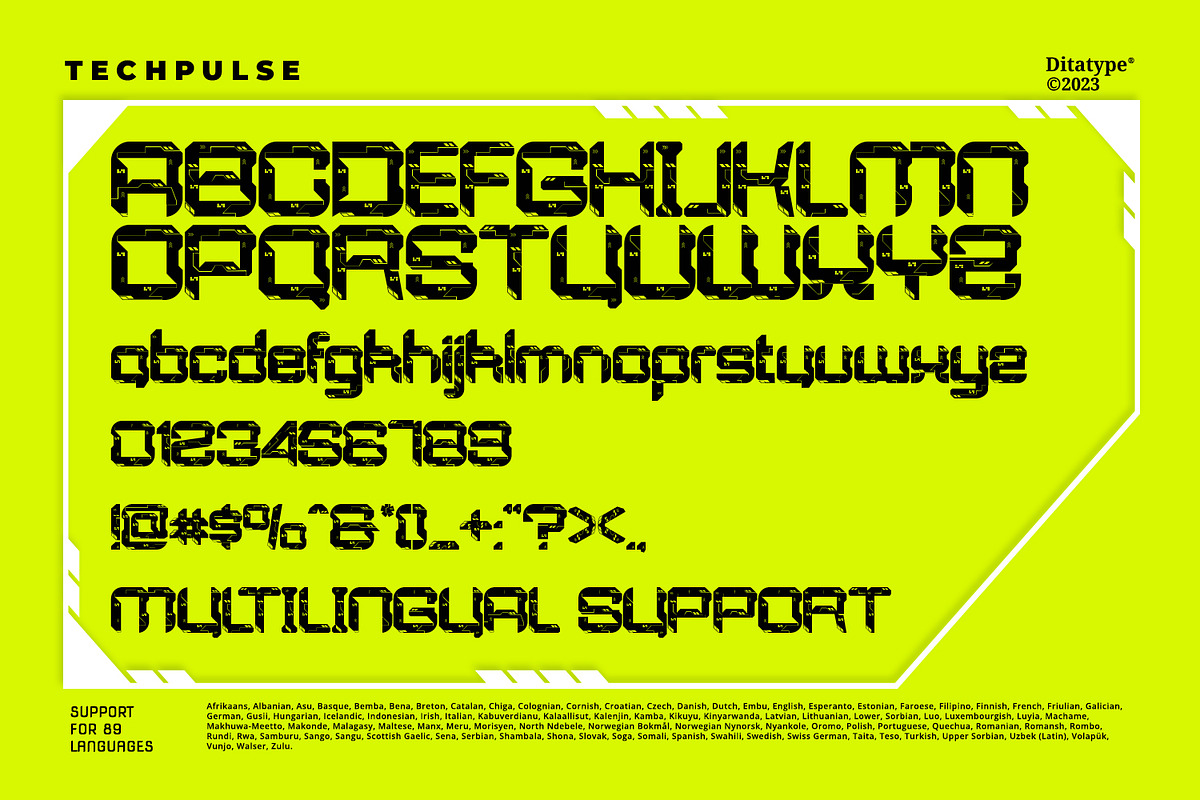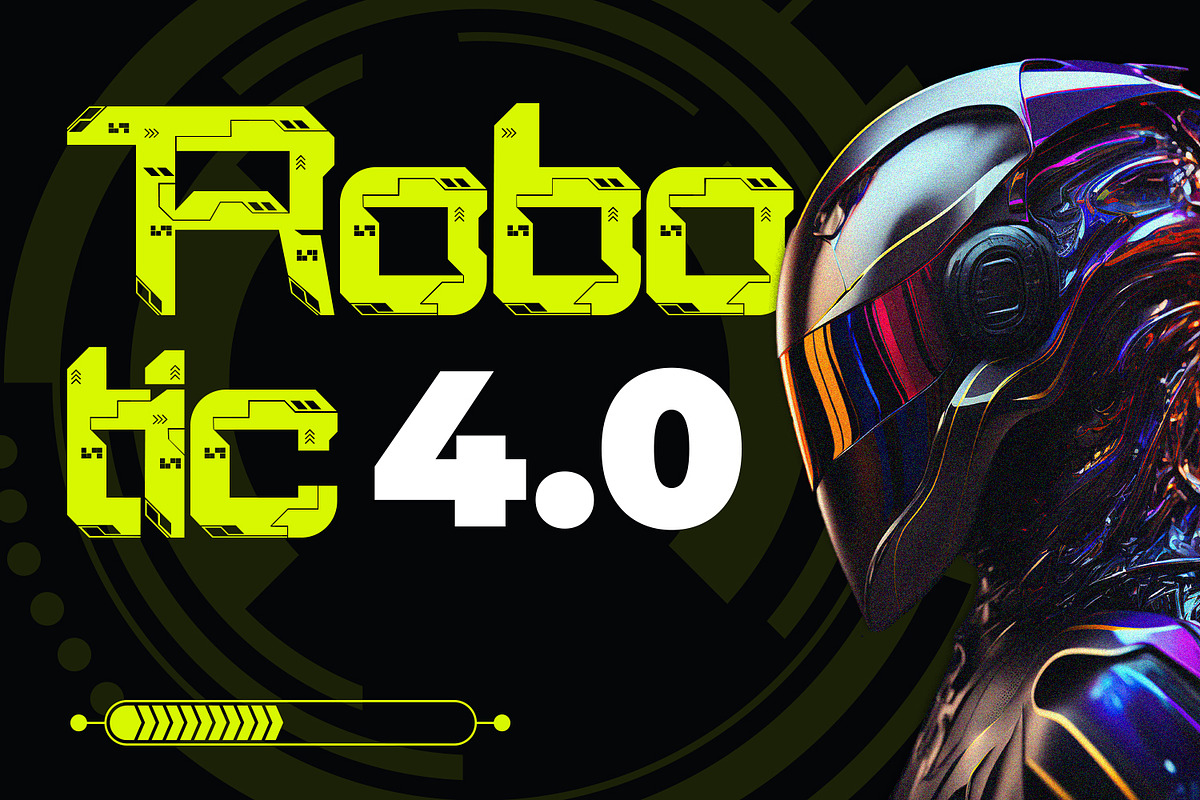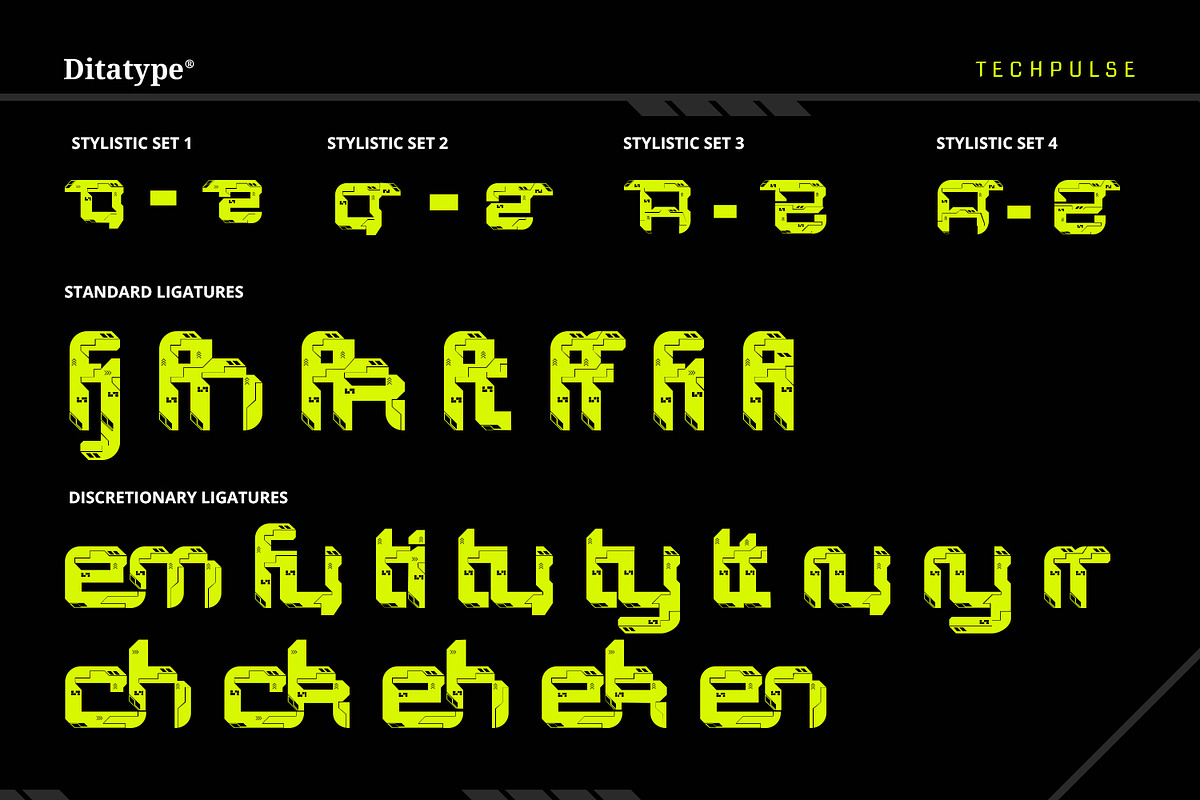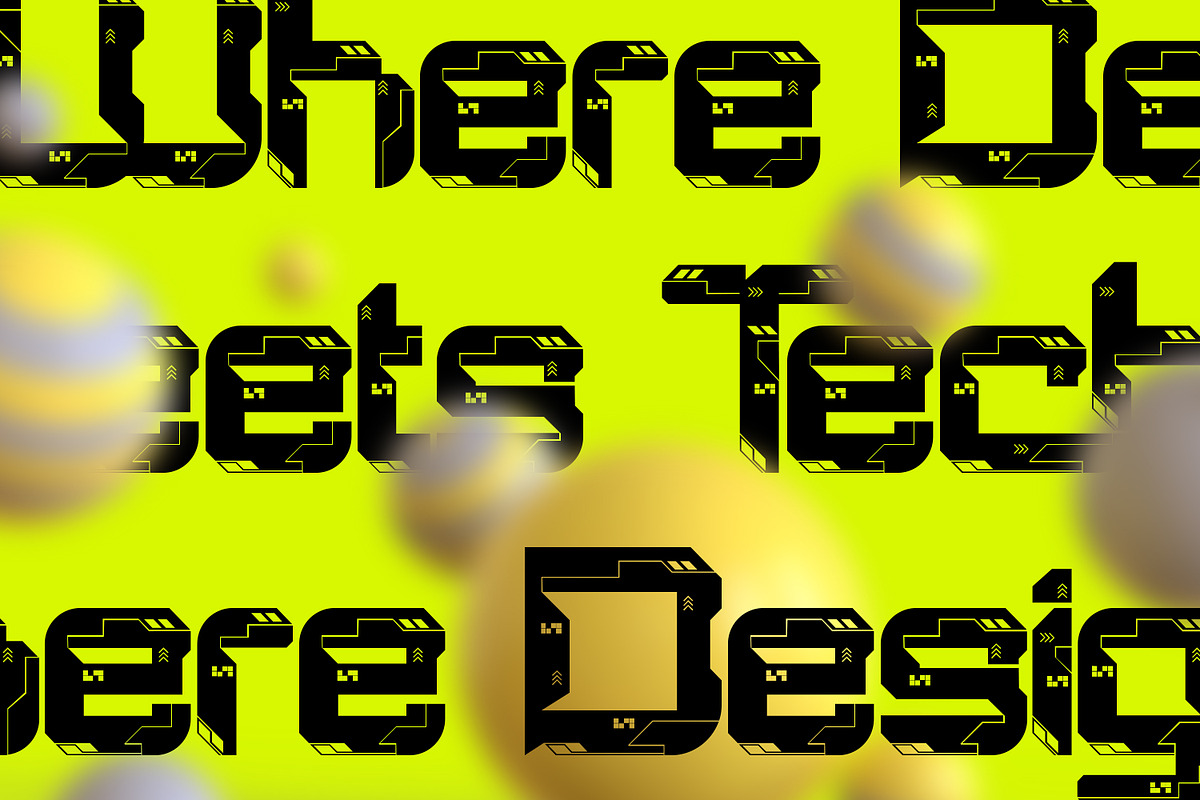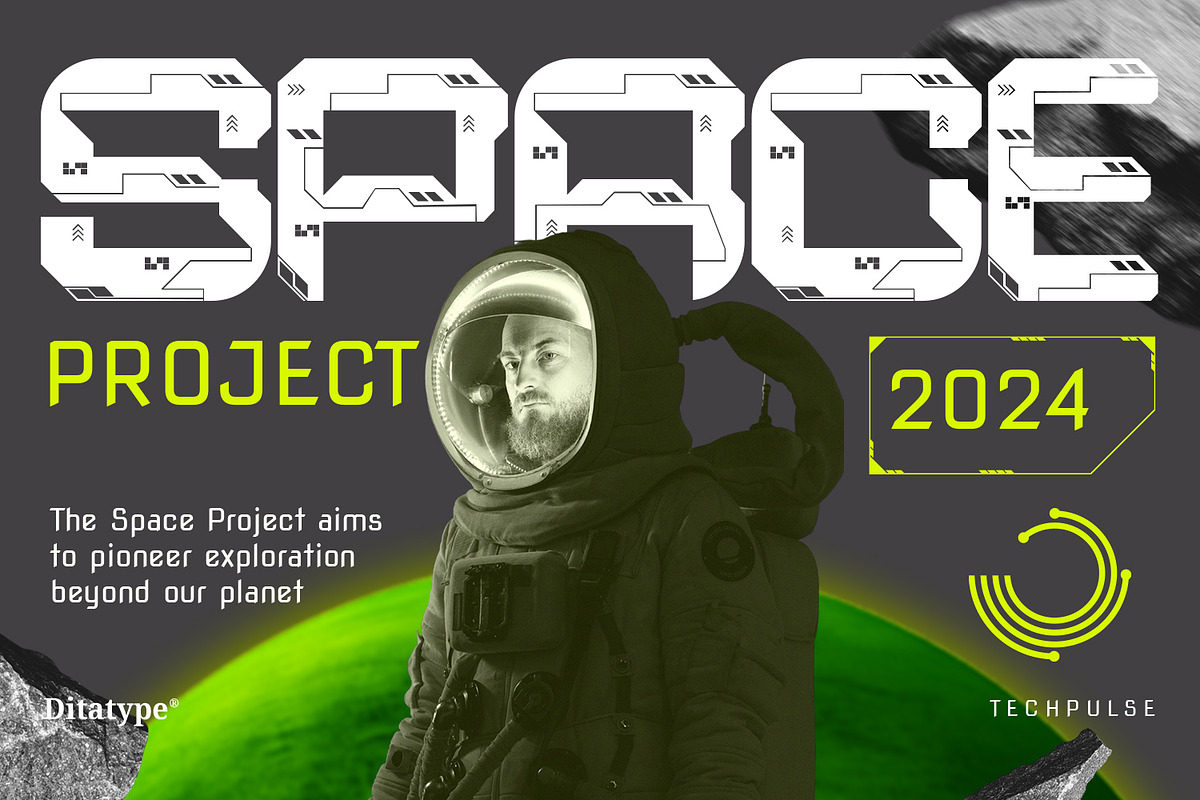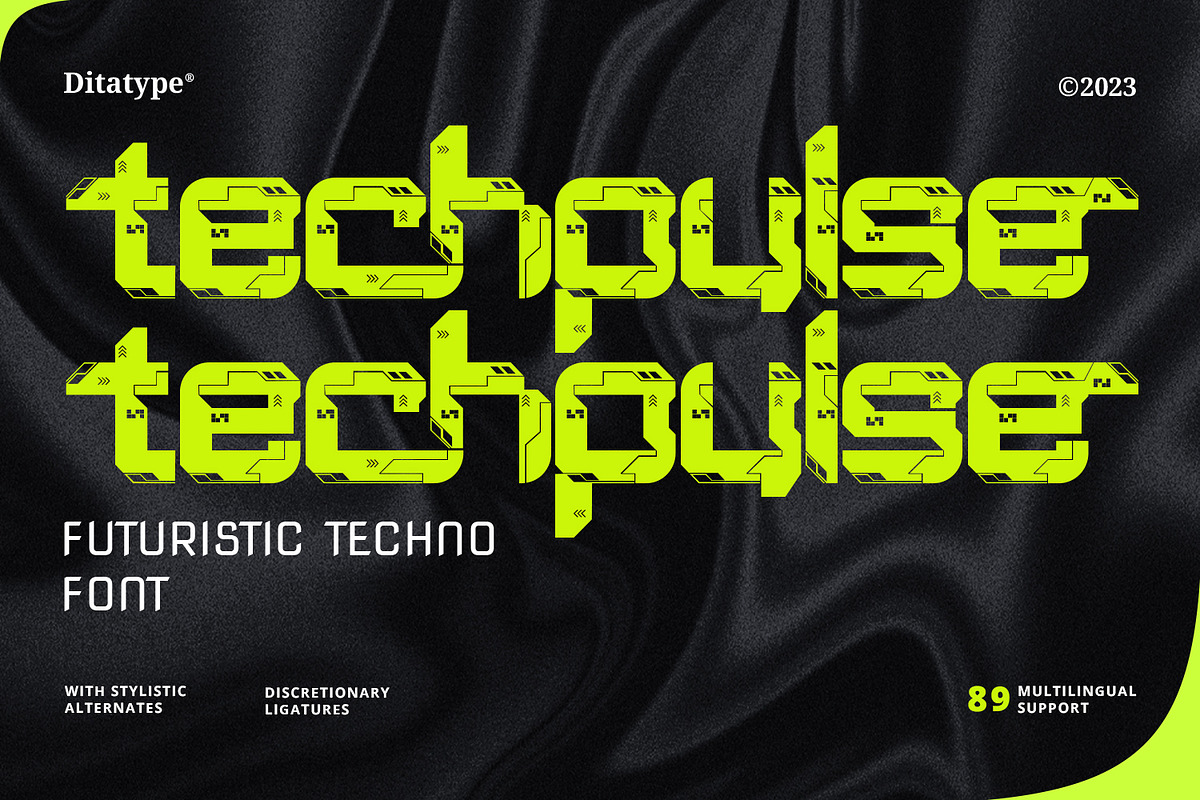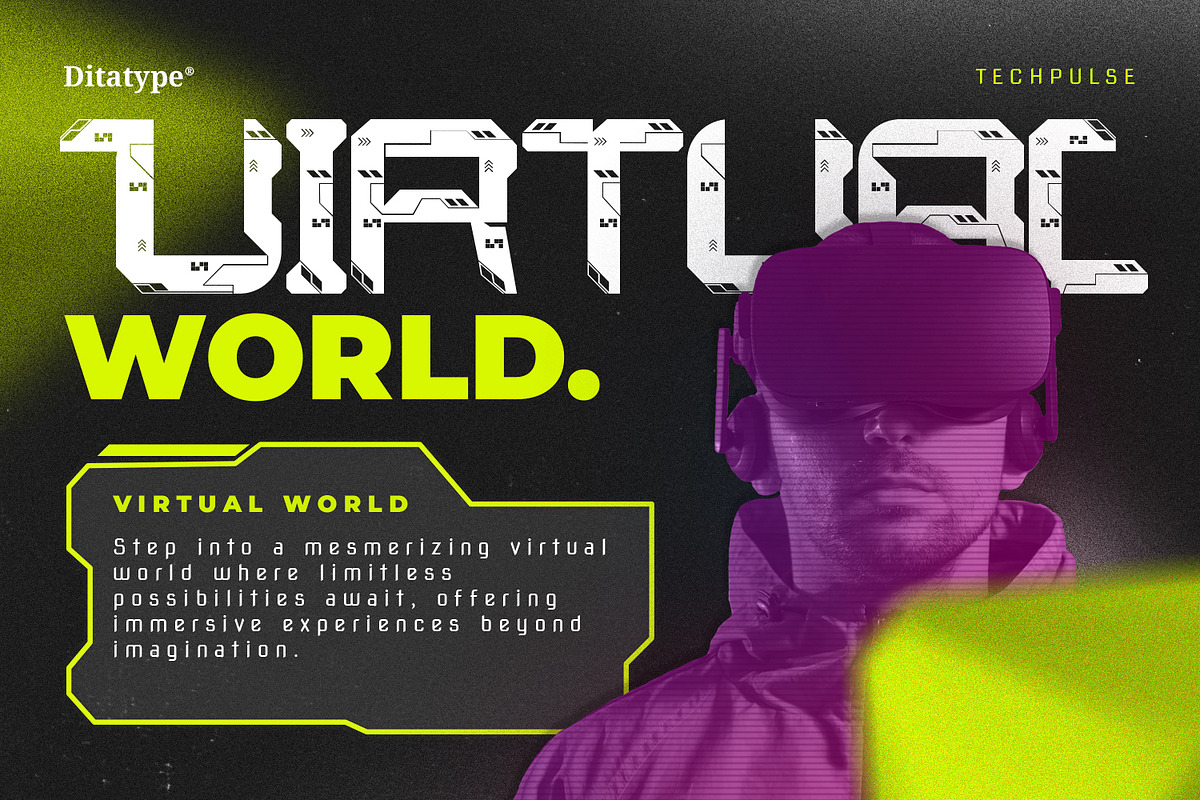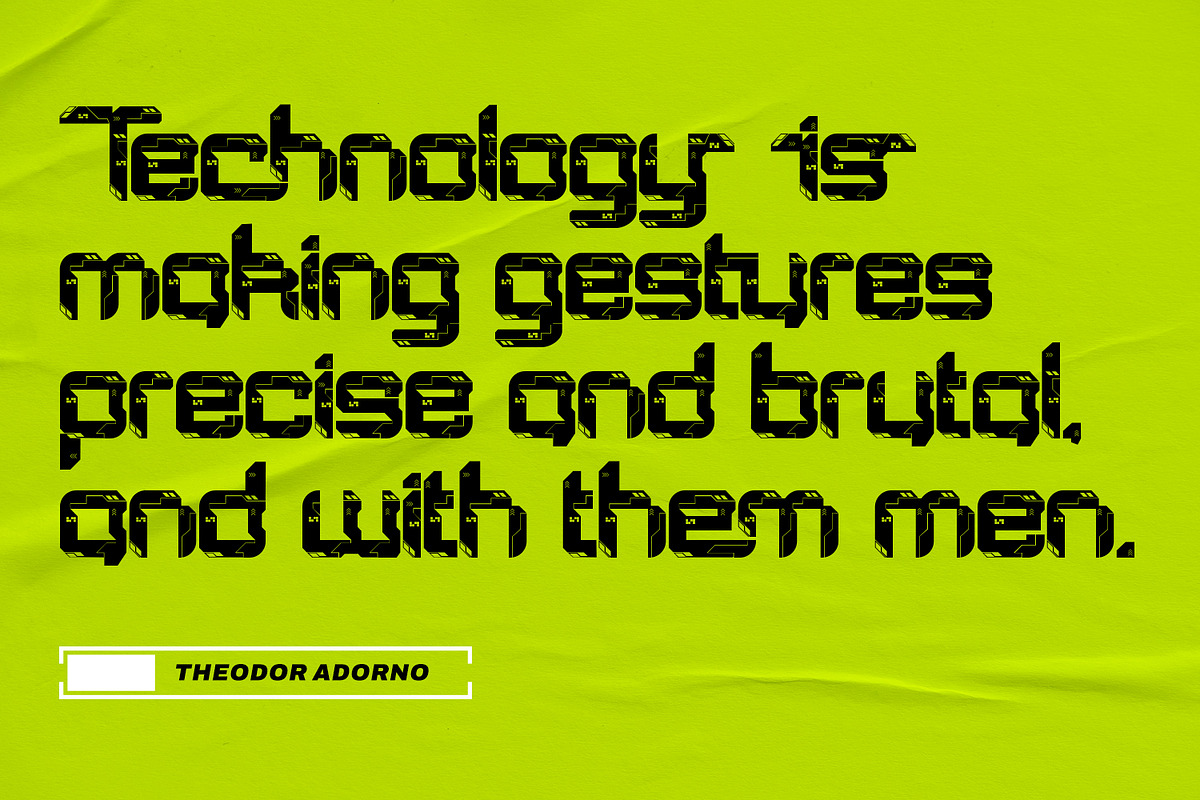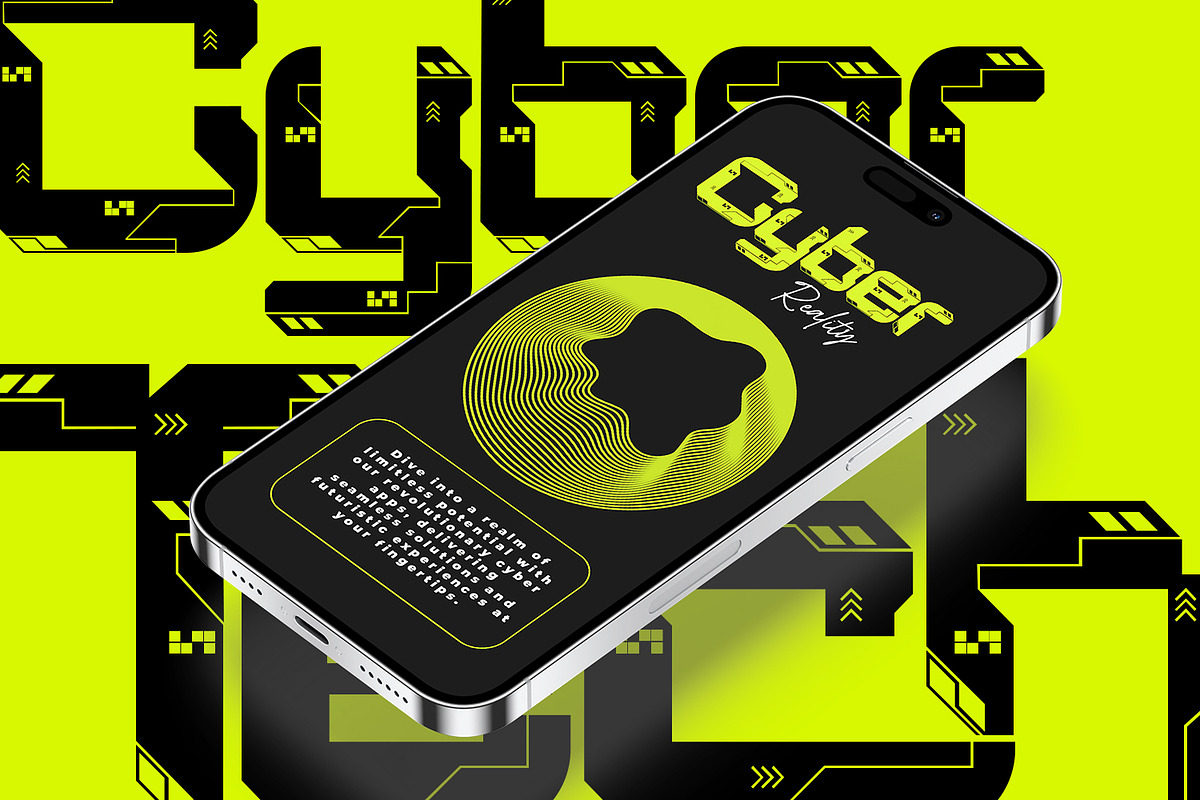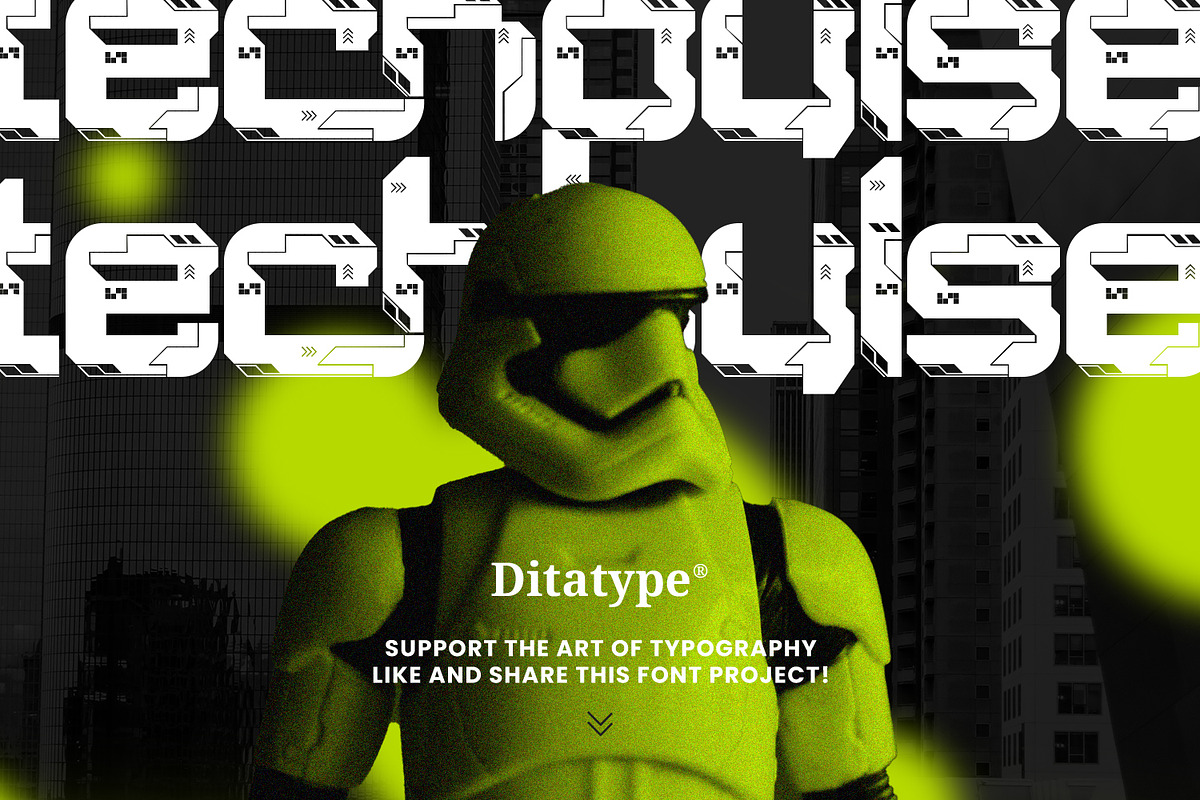
Techpulse
Techpulse is a striking display font that embodies the essence of futuristic design, with techno-inspired details adorning each letter. Every letter in Techpulse is meticulously crafted to incorporate intricate techno details, reminiscent of circuitry patterns and digital elements. These details infuse the font with a sense of dynamic energy, as if each character pulses with technological vitality.
Despite its bold weight, Techpulse maintains a low contrast between strokes, ensuring a balanced and harmonious appearance across the entire typeface. This characteristic enhances readability. The font's outline style adds to its futuristic appeal, giving each letter a sleek and modern aesthetic. In addition, enjoy the features here.
- Stylistic Sets
Techpulse fits in headlines, logos, posters, flyers, branding materials, greeting cards, print media, editorial layouts, and many more designs. Find out more ways to use this font by taking a look at the font preview.